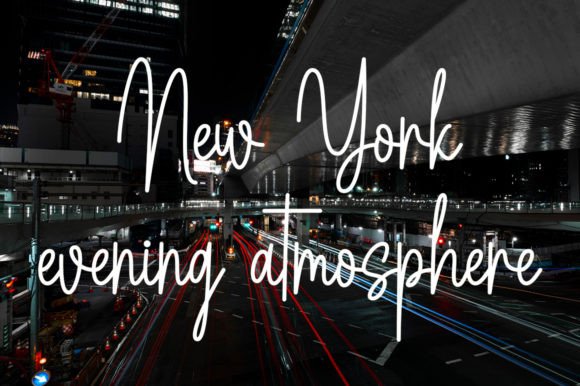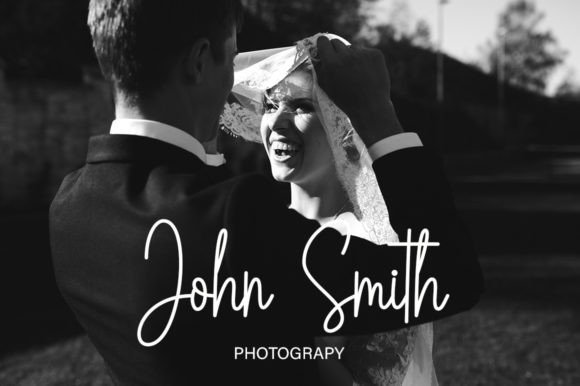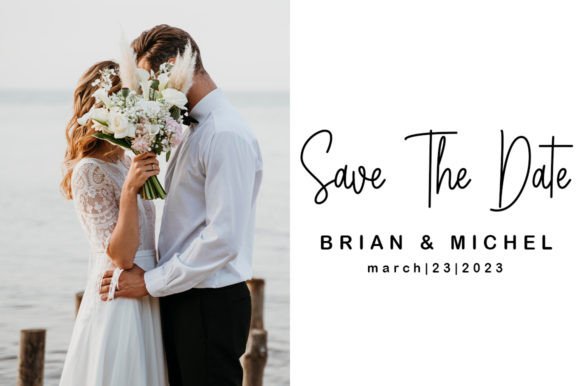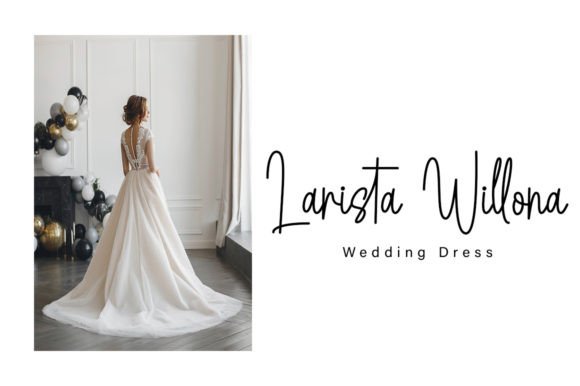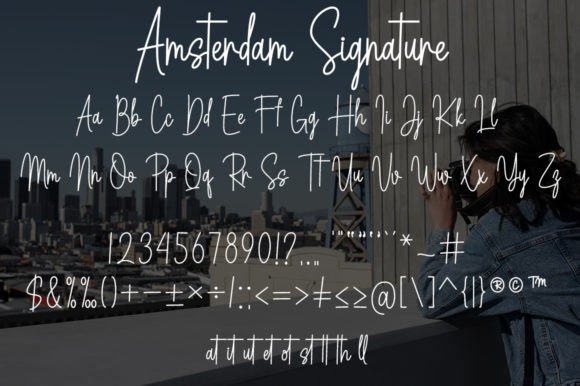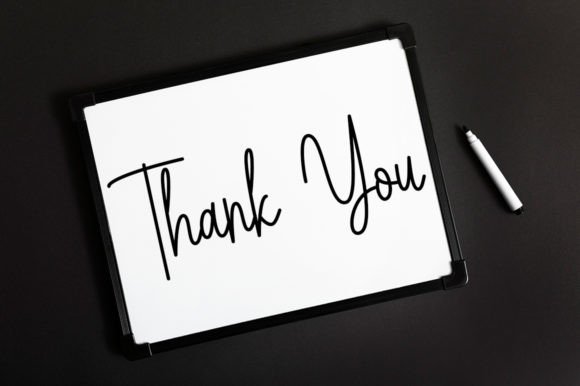
Introducing Amsterdam Signature: The Ultimate Modern Script Font
Are you a designer, craftor, or typography enthusiast looking for a modern and elegant script font to elevate your creative projects? Look no further than Amsterdam Signature, a stunning monoline script font that is sure to refine any creation. In this article, we’ll dive into the features, benefits, and uses of Amsterdam Signature, and explore why it’s a must-have addition to your font library.
What is Amsterdam Signature?
Amsterdam Signature is a carefully crafted, modern script font that boasts a sleek and sophisticated monoline design. With its remarkably detailed strokes and flowing curves, this font exudes elegance and refinement, making it perfect for a wide range of creative applications. Whether you’re designing a logo, creating a brand identity, or crafting a beautiful piece of art, Amsterdam Signature is the ideal choice.
Key Features of Amsterdam Signature
- Modern and Monoline Design: Amsterdam Signature features a sleek, modern monoline design that is both elegant and versatile.
- Accurately Crafted and Detailed: Every stroke and curve has been carefully crafted to ensure that Amsterdam Signature is remarkably detailed and visually stunning.
- Wide Range of Applications: From logos and branding to art and design, Amsterdam Signature is suitable for a wide range of creative projects.
Benefits of Using Amsterdam Signature
So why choose Amsterdam Signature for your next project? Here are just a few benefits of using this amazing font:
- Elegance and Sophistication: Amsterdam Signature adds a touch of elegance and sophistication to any design, making it perfect for high-end brands and creative projects.
- Flexibility and Versatility: With its monoline design and PUA encoding, Amsterdam Signature can be used in a wide range of applications, from digital designs to print materials.
- Unique and Creative: Amsterdam Signature is a unique and creative font that will help your designs stand out from the crowd.
Who Can Benefit from Amsterdam Signature?
Amsterdam Signature is an ideal font for a wide range of designers, craftors, and typography enthusiasts, including:
- Graphic Designers: Add a touch of elegance and sophistication to your designs with Amsterdam Signature.
- Logotype Designers: Create stunning logos and brand identities with this versatile and modern script font.
- Artisans and Craftors: Use Amsterdam Signature to add a personal touch to your handmade crafts and art pieces.
- Typography Enthusiasts: Explore the creative possibilities of Amsterdam Signature and experiment with new and exciting typography projects.
In conclusion, Amsterdam Signature is an exceptional modern script font that is sure to elevate your creative projects to new heights. With its elegant monoline design, PUA encoding, and remarkable attention to detail, this font is a must-have addition to any font library. Whether you’re a designer, craftor, or typography enthusiast, Amsterdam Signature is the perfect choice for anyone looking to add a touch of sophistication and elegance to their work.